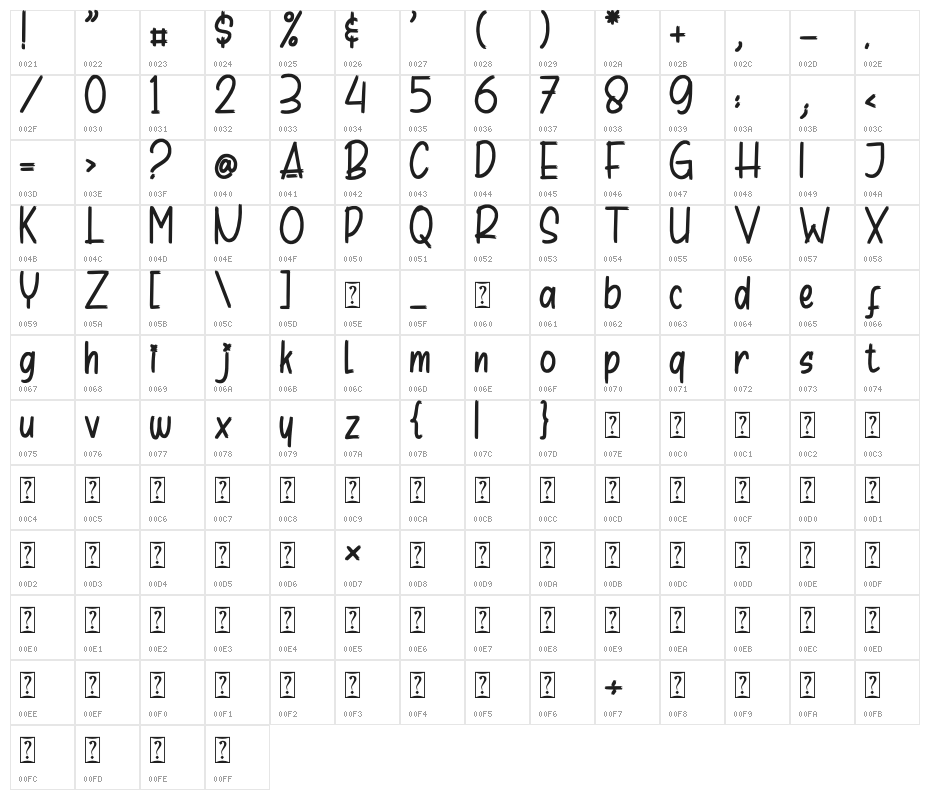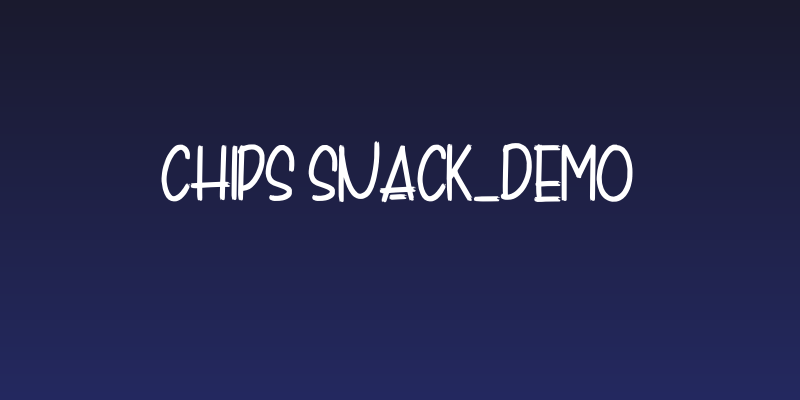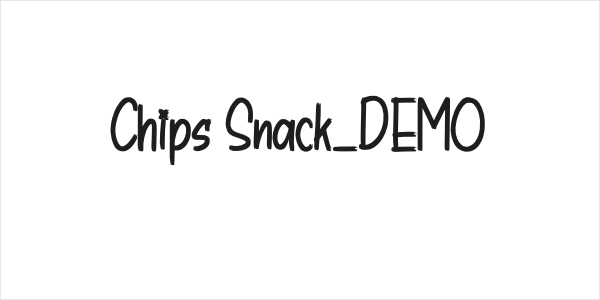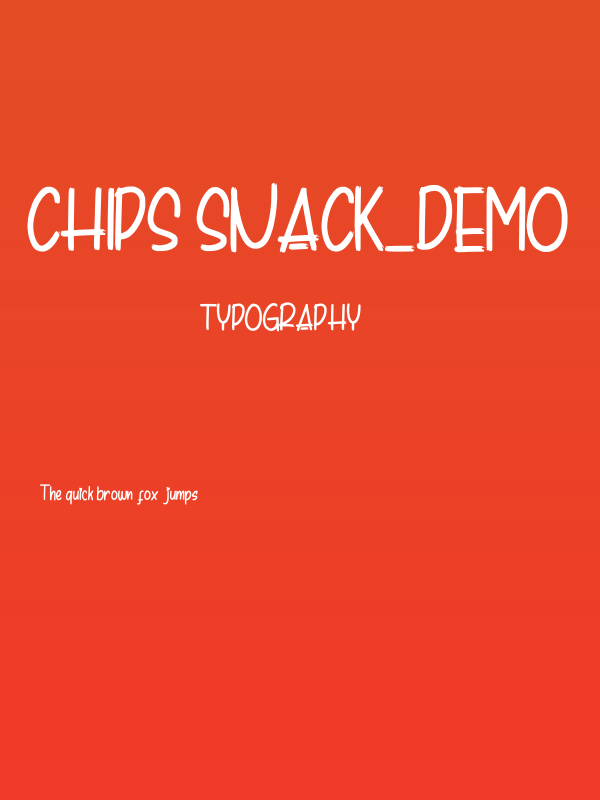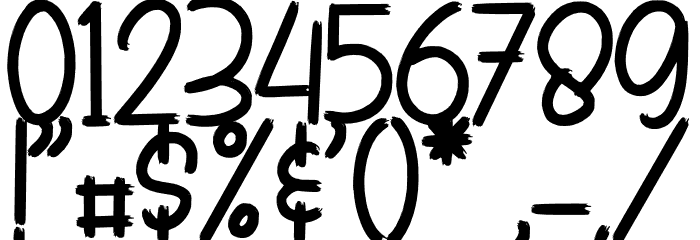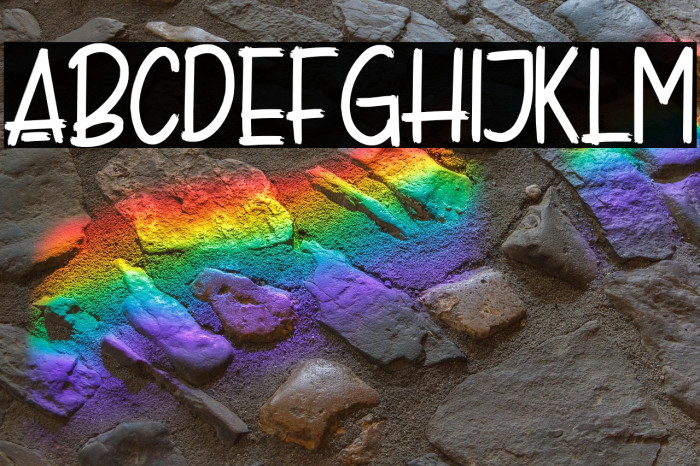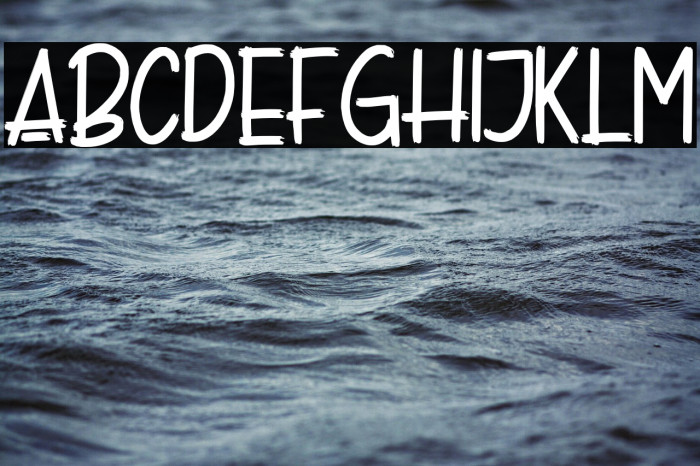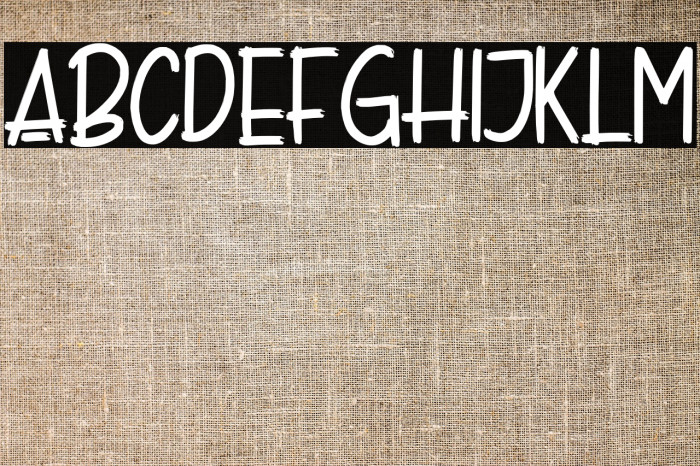
Chips Snack_DEMO Font
Chips Snack_DEMO Description
This font exudes a playful and energetic vibe, characterized by its bold, hand-drawn appearance. The letters are slightly irregular, giving it a casual and informal feel. The strokes are thick and consistent, enhancing its legibility while maintaining a fun and whimsical style. The uppercase and lowercase letters are well-proportioned, with a slight slant that adds to the dynamic look. Numbers and special characters follow the same lively design, making this font versatile for various creative projects.
| Proposed Projects | Ideal for children's books, playful branding, casual posters, and creative social media graphics. |